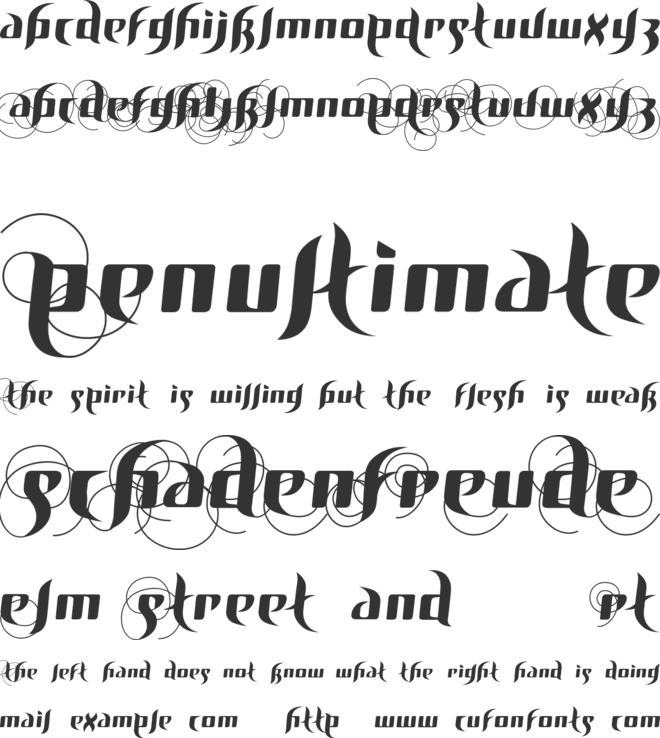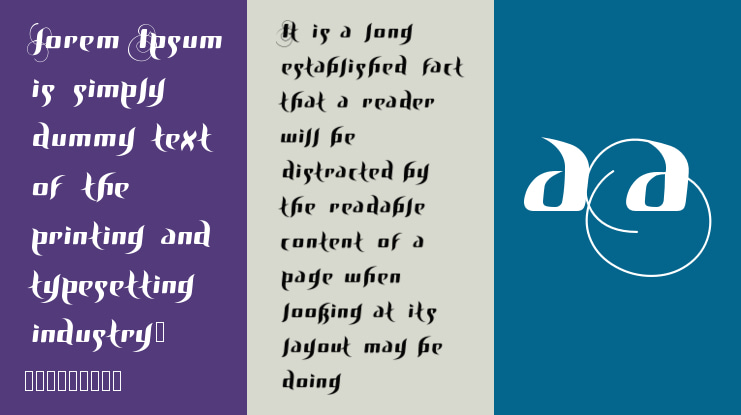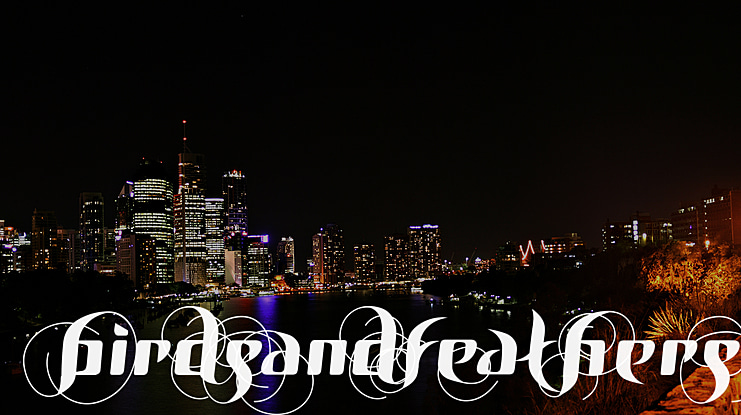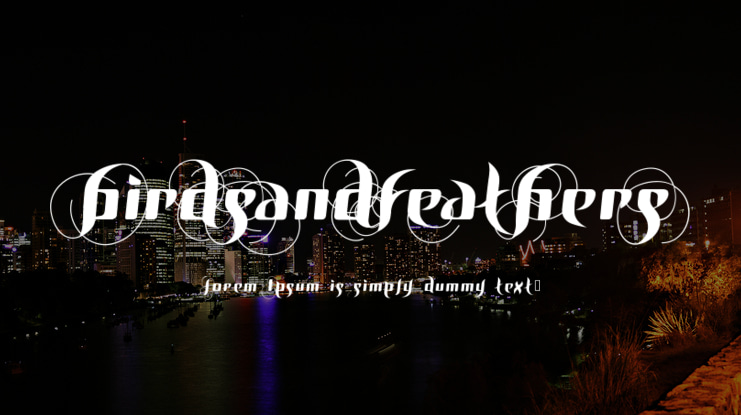
BirDSAnDFEatHerS Font
Experimented a lot with this one. It’s supposed to be decorative mainly. You might wanna mix uppercase and lowercase letters for a more impressive effect! :)